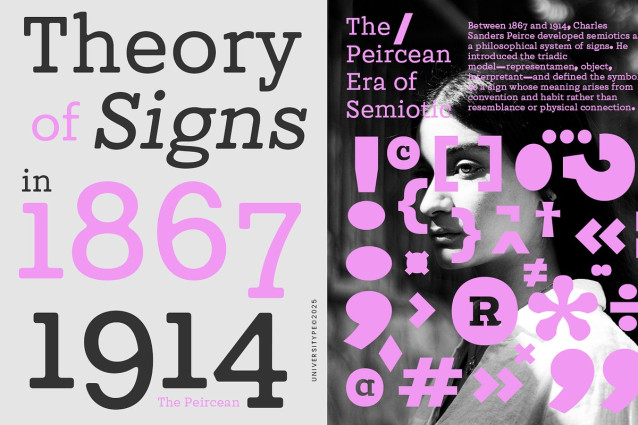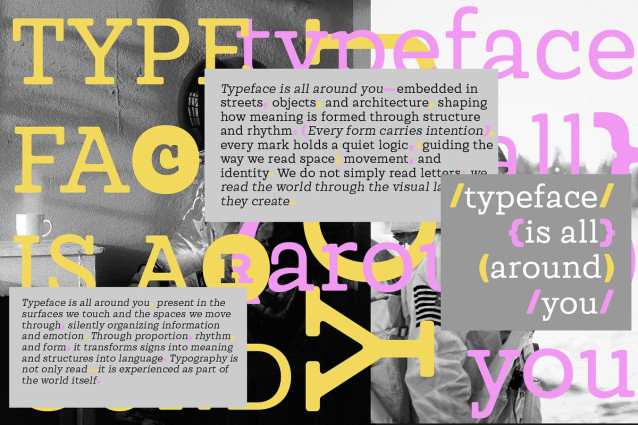
UT Symbold Font
UT Symbold Font is a striking, experimental display typeface that challenges the traditional hierarchy of written language. This font treats punctuation, mathematical symbols, and glyphs with the same weight and personality as its alphanumeric characters. It is a high-contrast, slab-influenced face that commands attention, making it perfect for designers who want their text to do more than just “read”—it needs to communicate through a visual system of signs.